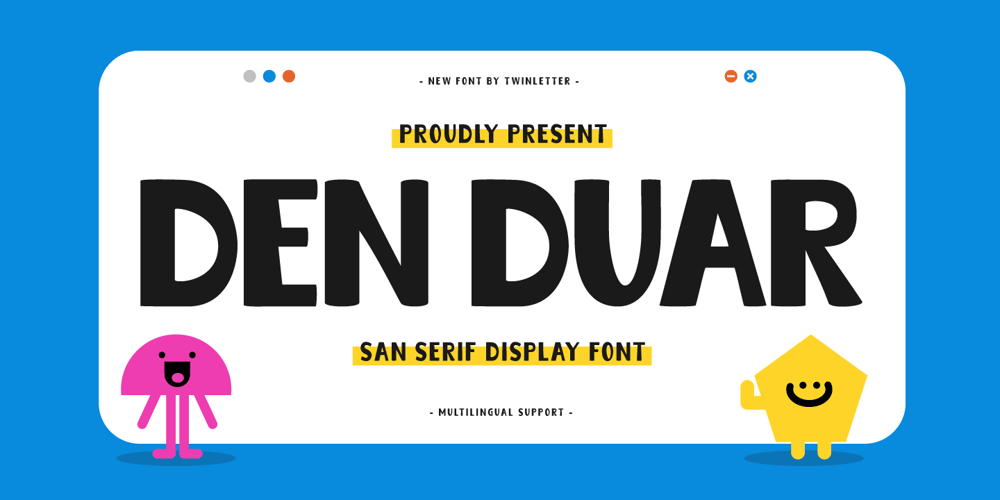
Den Duar Font Family was designed by Murozakul Akhsan and published by Trabas Kriya. Den Duar contains 1 styles and family package options. Den Duar is a handwritten font that captures the beauty of natural handwriting. Its flowing, organic characters are perfect for designs that require a personal, handmade feel. With Den Duar, your designs will have a natural, authentic look.What’s Included:- All glyphs and Feature- We highly recommend using a program that supports OpenType features and Glyphs panels like many Adobe apps and Corel Draw so that you can see and access all Glyph variations.- PUA Encoded Characters, Fully accessible without additional design software.- Fonts include Multilingual: Support for 85 languages. Afrikaans, Albanian, Asu, Basque, Bemba, Bena, Breton, Catalan, Chiga, Cornish, Croatian, Czech, Danish, Dutch, Embu, English, Esperanto, Estonian, Filipino, Finnish, French, Friulian, Galician, Gusii, Hungarian, Indonesian, Irish, Italian, Kabuverdianu, Kalenjin, Kamba, Kikuyu, Kinyarwanda, Latvian, Lithuanian, Lower, Sorbian, Luo, Luxembourgish, Luyia, Machame, Makhuwa-Meetto, Makonde, Malagasy, Maltese, Manx, Meru, Morisyen, North, Ndebele, Norwegian Bokmål, Norwegian Nynorsk, Nyankole, Oromo, Polish, Portuguese, Quechua, Romanian, Romansh, Rombo, Rundi, Rwa, Samburu, Sango, Sangu, Scottish, Gaelic, Sena, Serbian, Shambala, Shona, Slovak, Slovenian, Soga, Somali, Spanish, Swahili, Swedish, Swiss German, Taita, Teso, Turkish, Upper Sorbian, Uzbek (Latin), Volapük, Vunjo, Walser, Zulu.